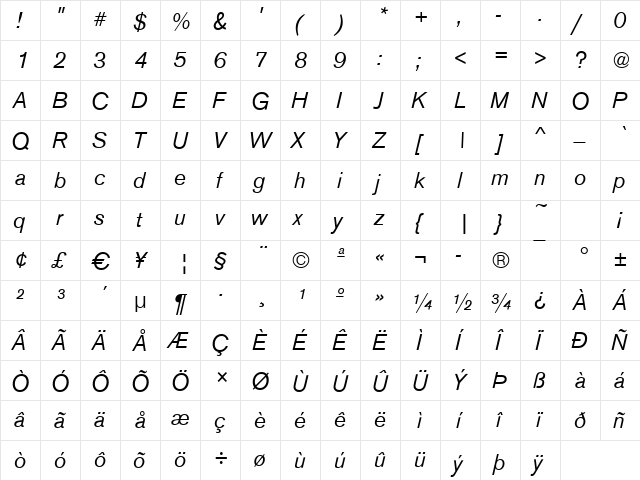
Ancona Italic
Design Context for Ancona Typeface
Ancona is a composed and adaptable typeface that performs quietly and consistently across a wide range of design contexts. The dynamic lean of this cut emphasises speed and emphasis in any layout.
Pro Tip: Try Ancona for annotation and caption copy alongside an upright companion — the contrast in angle creates a dynamic but ordered typographic system.